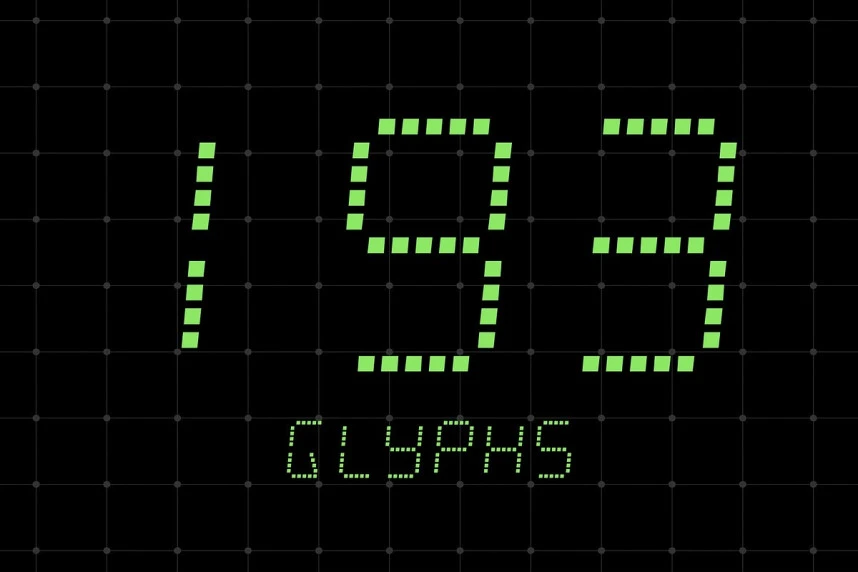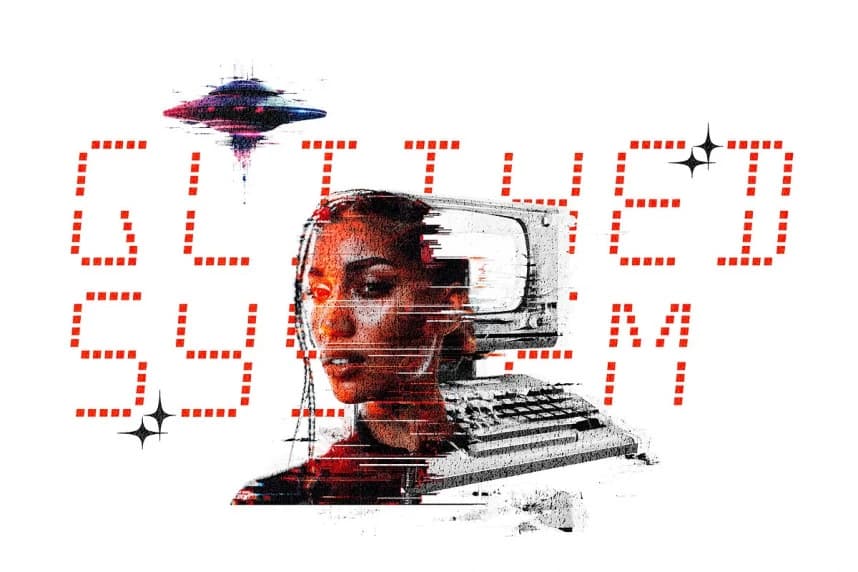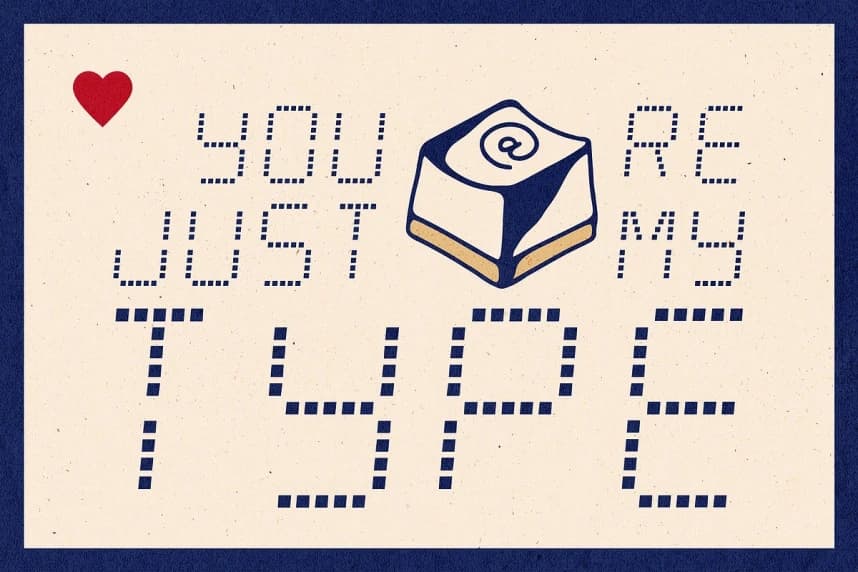
Terminal Vision Font
Terminal Vision Font is a bold, LED-style typeface that captures the clean, calculated look of airport terminals, digital clocks, transit signage, and vintage computing displays. Designed with absolute clarity and geometric finesse